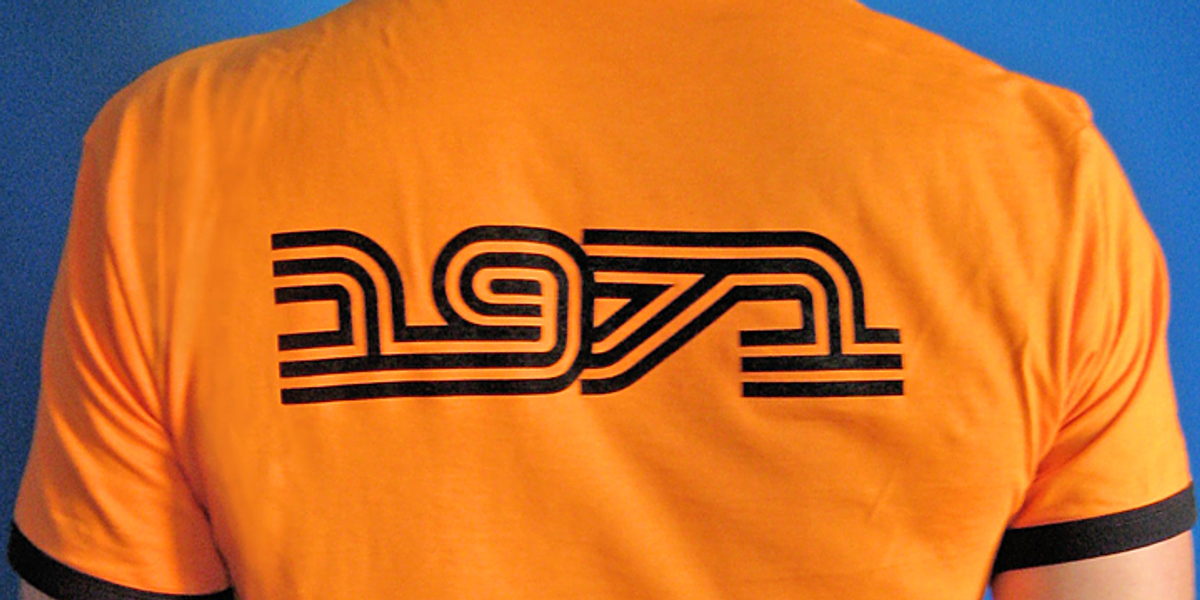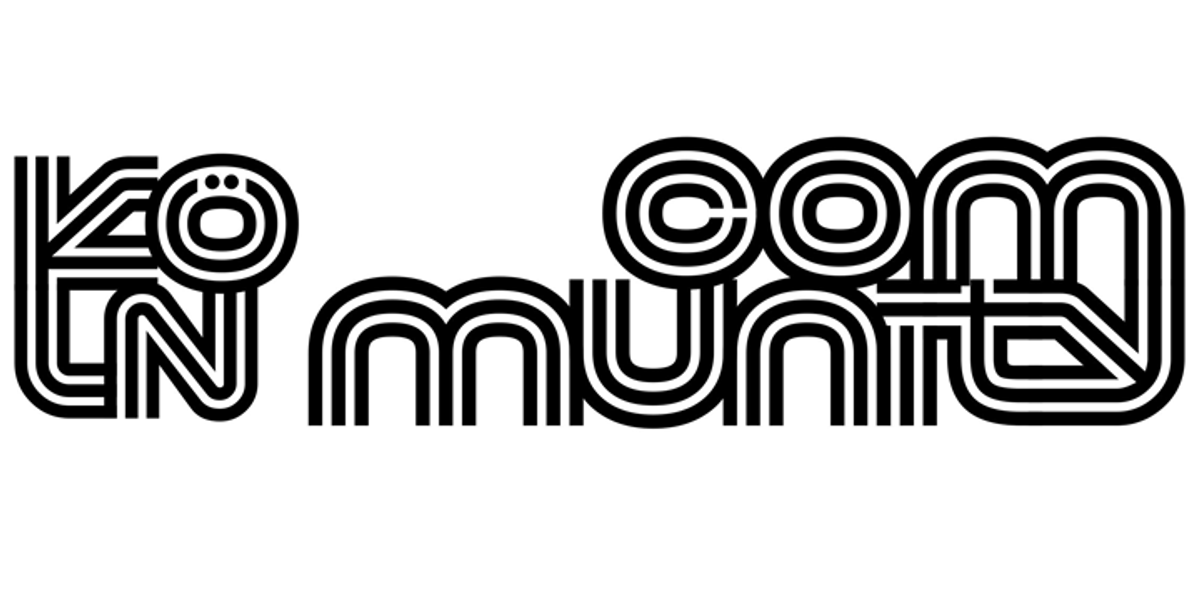
Virna
Virna is a geometric display typeface designed for headlines and branding. Its unique feature is the ability to create both vertical and horizontal ligatures between words across two text lines, mimicking the fluidity of handwriting or linked script typefaces. This op-art inspired design makes it a bold and experimental choice for visual communication.